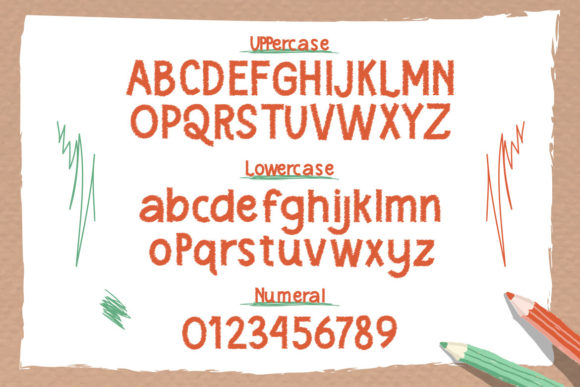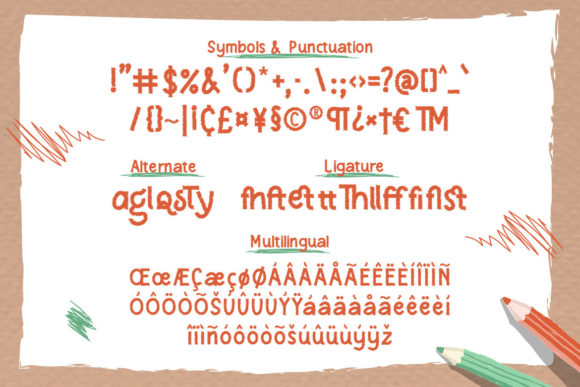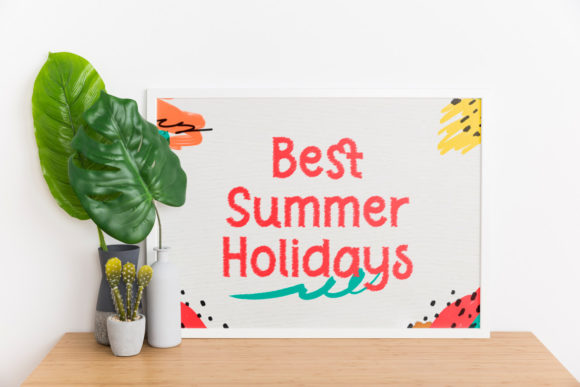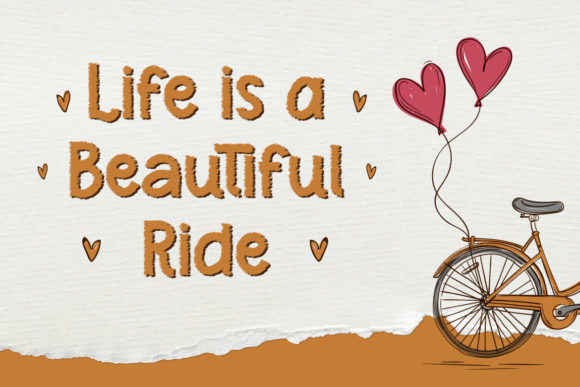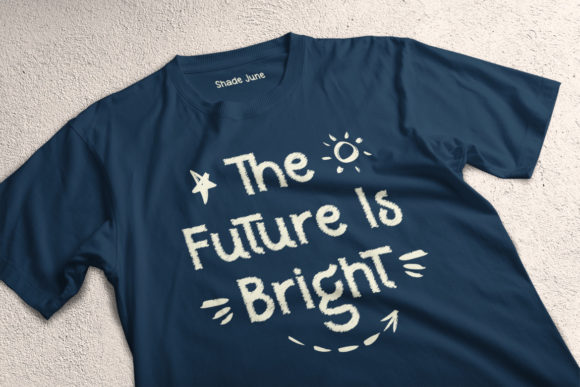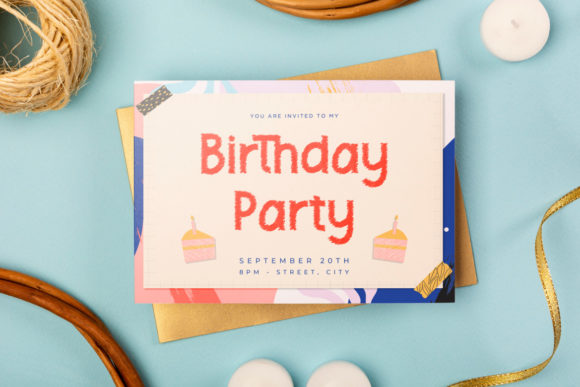
Introduction to Shade June Font
Have you ever been in the midst of a creative project, pouring your heart and soul into a design, only to be halted by the perfect font – the one that elevates your entire concept? For designers, finding that elusive font can be the difference between a mediocre design and a masterpiece. Enter Shade June Font, a cool and simple sketched display font that’s poised to take your designs to the next level.
This high-quality design resource is perfect for anyone looking to add a touch of elegance and sophistication to their projects. With its clean lines and subtle texture, Shade June Font is a versatile choice for posters, flyers, and prints. Plus, with a transparent background, it’s easy to layer and manipulate to create unique and visually striking designs.
Key Features of Shade June Font
- High-quality, unique design resource ideal for creative projects
- Comes with a transparent background, allowing for seamless integration into various designs
- Includes a wide range of characters, including uppercase and lowercase letters, numbers, and punctuation
- Designed with a modern aesthetic, making it suitable for a variety of design applications
- Features a clean and elegant design, with a resolution of 1024 x 1024 pixels for crisp and clear display
Honest Review: Shade June Font
As a designer, I’m always on the lookout for high-quality design resources that can elevate my creative projects. The Shade June Font is a great addition to any designer’s toolkit, offering a beautiful and unique aesthetic that’s perfect for a wide range of applications.
- High-quality design: The Shade June Font is beautifully crafted, with a clear and crisp design that looks great at any size.
- Transparent background: This is a huge plus for designers who want to be able to use the font on a transparent background without any issues.
While the Shade June Font is a great resource, there are a few limitations to be aware of. For example, the font may not be suitable for use in certain contexts, such as logos or other high-contrast applications. Additionally, the font’s design may not be to everyone’s taste.
Tips for Getting the Most Out of Shade June Font
Some tips for getting the most out of Shade June Font include using it in combination with other design elements, experimenting with different font sizes and styles, and using it in creative ways such as in logos or titles.
Common Use Cases for Shade June Font
Some common use cases for Shade June Font include using it in branding and logos, creating invitations and flyers, and designing social media graphics. The font’s unique style and design make it a popular choice for creative projects.